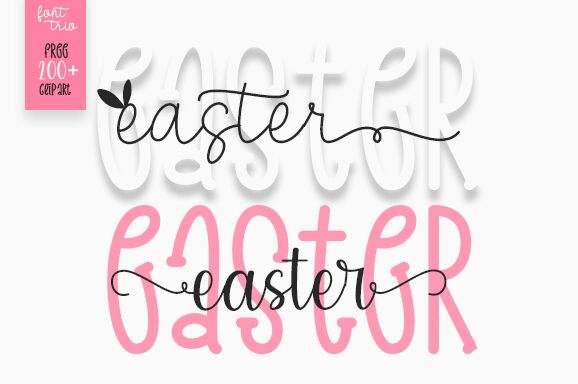
Easter Script
Easter Script, the elegant calligraphy font designed by Fillo Graphic, is perfect for adding a touch of sophistication to your projects. Its semi-light weight and semi-condensed width make it versatile for a variety of design applications, from wedding invitations to product packaging. Use this font to bring a classic, hand-written feel to your work and elevate it with its graceful curves and loops. Whether you're creating a logo or designing a website, Easter Script will add an air of refinement that is sure to impress. Get creative with this gorgeous typeface and let it elevate your next project!